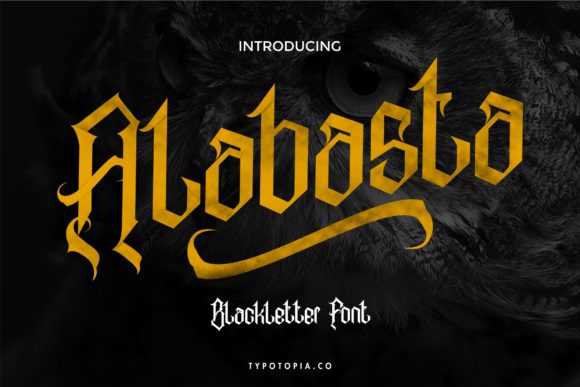
Journey through the annals of time with Alabasta Font, an exquisite blackletter font that exudes an aura of vintage charm and sophistication. Crafted with meticulous attention to detail by the talented typographers at Typotopia, this font is a true gem that will elevate your creative projects to new heights.
Step into a world of timeless elegance with Alabasta Font, a blackletter font that evokes the grandeur of bygone eras. Its intricate letterforms, reminiscent of ancient manuscripts, lend an air of authenticity and prestige to your designs. Whether you seek to create a captivating brand identity, craft an enchanting invitation, or design a poster that exudes vintage charm, Alabasta Font is your perfect companion.
Immerse yourself in the beauty of Alabasta Font's meticulously crafted glyphs, each one a testament to the artistry and dedication of its creators. The flowing lines, delicate serifs, and intricate details of this font will transform your words into captivating works of art. Unleash your creativity and let Alabasta Font guide you towards designs that leave an unforgettable impression.
Let Alabasta Font be the cornerstone of your brand identity, imbuing your logo, website, and marketing materials with a timeless appeal that resonates with your audience. Its vintage charm will evoke a sense of nostalgia and authenticity, setting your brand apart from the ordinary and creating a lasting connection with your customers.
With Alabasta Font at your disposal, you hold the power to transport your readers to a realm of enchantment and wonder. Its blackletter style, reminiscent of ancient tales and mystical legends, will captivate their attention and leave them spellbound. Unleash your imagination and craft designs that ignite their curiosity and leave them yearning for more.